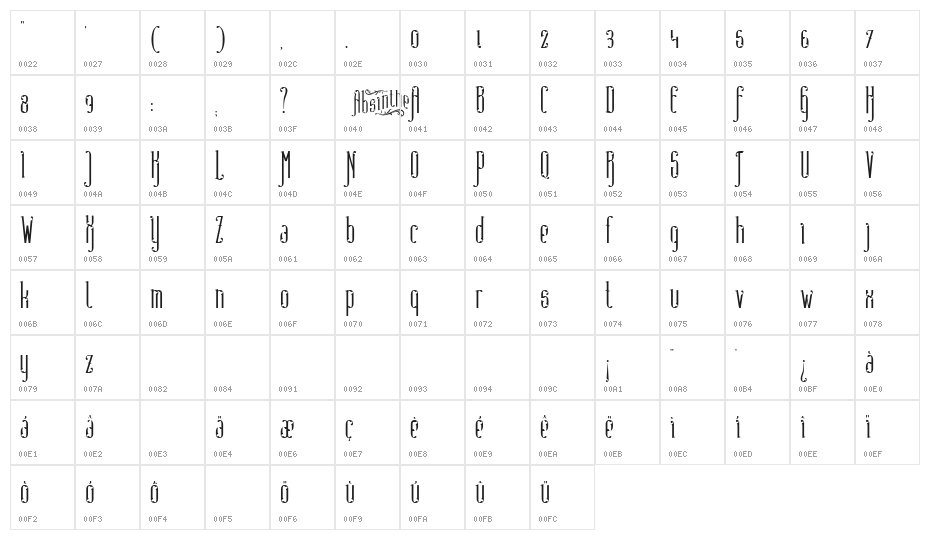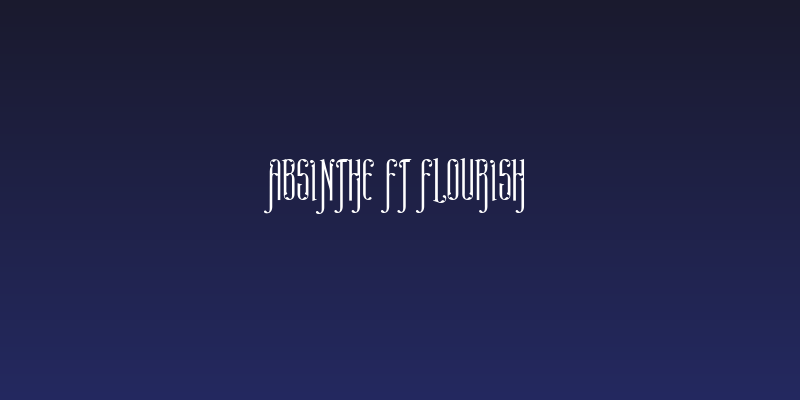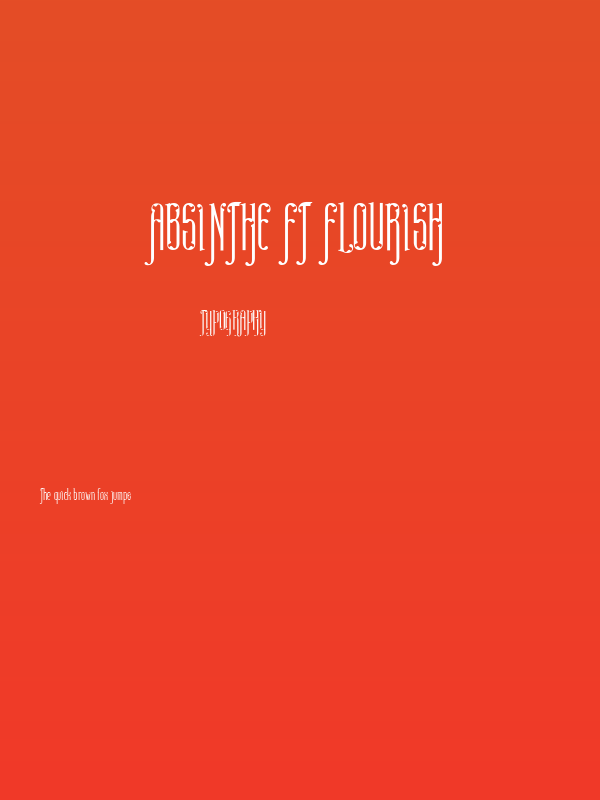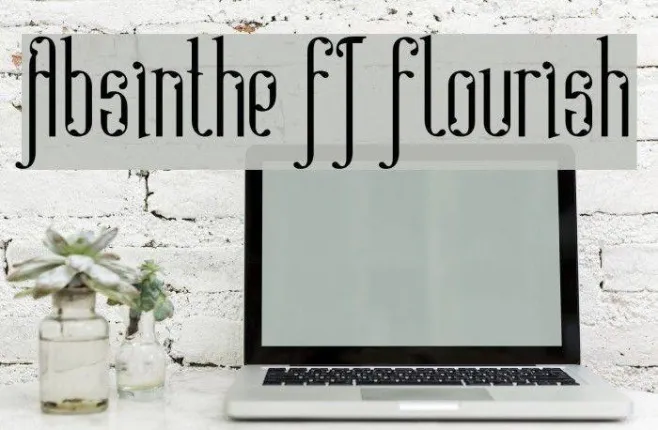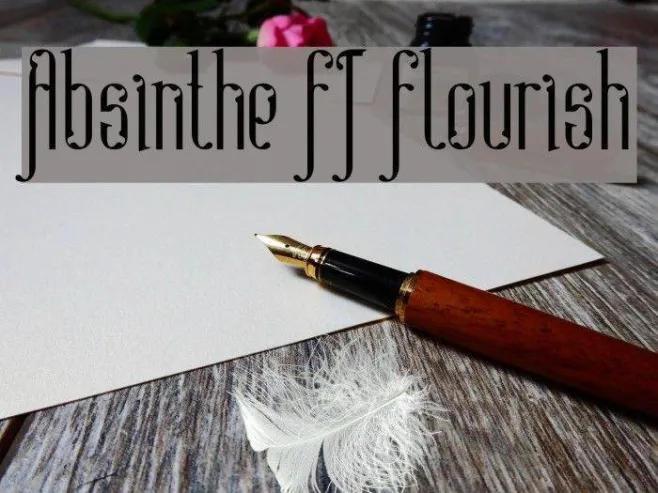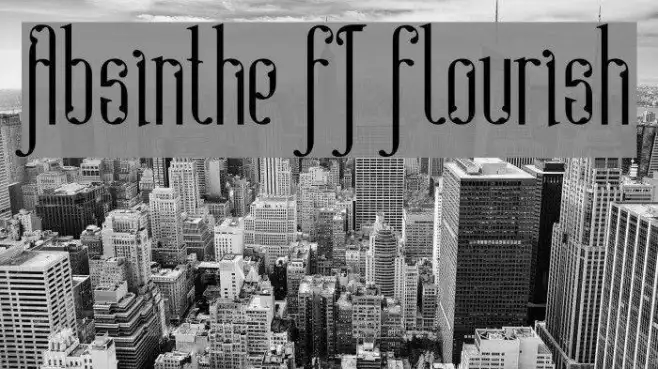
Absinthe FT Flourish Font
Absinthe FT Flourish Description
This font features a unique and decorative style with elongated and narrow letterforms. The uppercase letters are tall and slender, with intricate flourishes that add an elegant touch. The lowercase letters maintain a similar narrow structure, providing a cohesive look across the alphabet. The numbers follow the same stylistic approach, ensuring consistency throughout. Special characters are designed with the same attention to detail, making them suitable for creative and artistic projects. The overall appearance is both vintage and modern, offering versatility for various design needs.
| Proposed Projects | Ideal for branding, posters, invitations, and any project requiring a touch of elegance and creativity. |
| Author | Fonts by Absinthe is an Art Nouveau inspired typeface. |